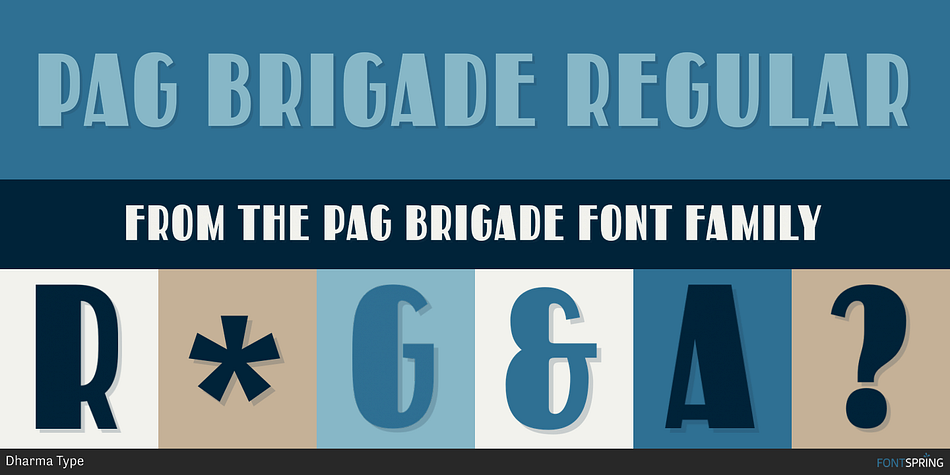
PAG BRIGADE REGULAR
PAG Brigade is a retro font published by Dharma Type.
Prop-a-ganda offers retro-flavored fonts inspired by lettering found on vintage propaganda posters, classic advertisements, and retro packaging from around the world.
These typefaces capture the bold spirit and nostalgic charm of global mid-century design.
PAG Brigade is a heavy, but cute font. The contrast of bold and thin stroke left a strong impression.